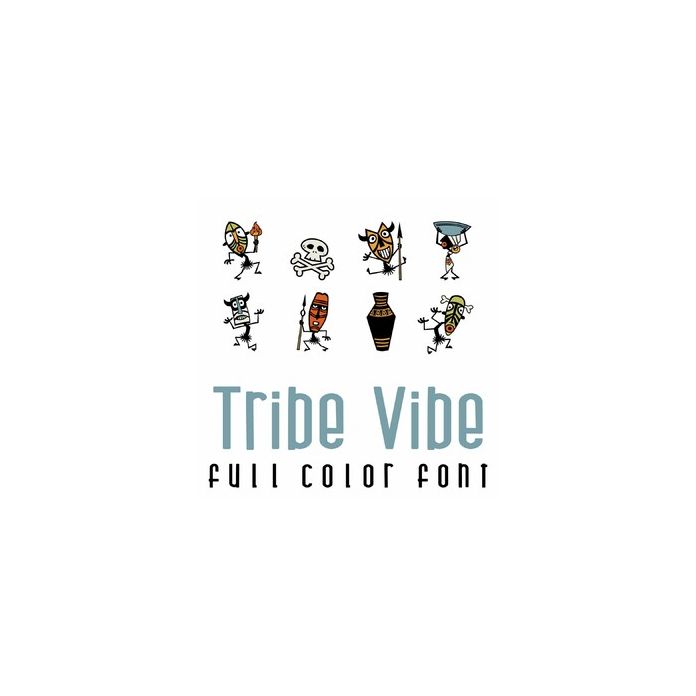
This adorable full color doodlebat font features fun tribal style imager. Perfect for cards, crafts, gifts, decor, scrap book pages, planner stickers and more!